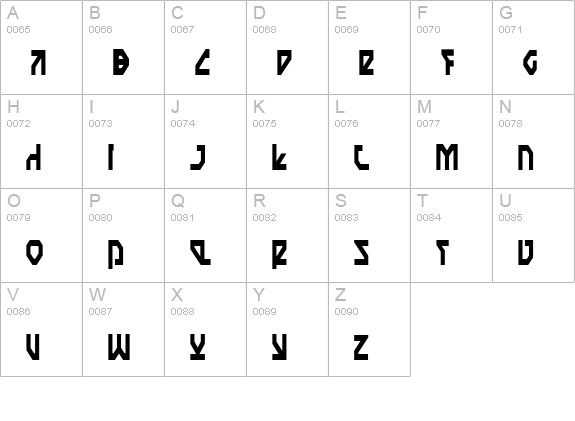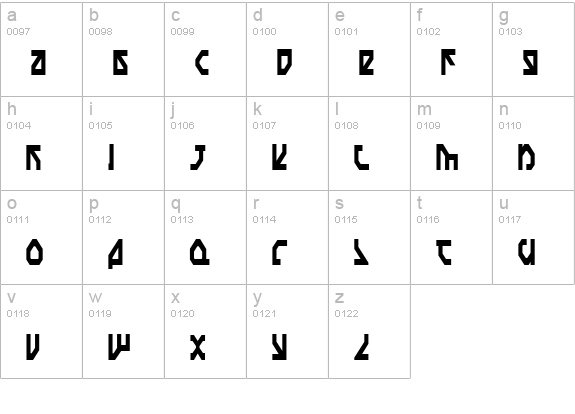
Nostromo Condensed is a distinctive, condensed-width variant in the Nostromo typeface family \xE2\x80\x94 well suited to design and typography projects.
Nostromo Condensed is a sleek and modern typeface that exudes sophistication and elegance. Its condensed design makes it perfect for projects that require a clean and minimalist look without sacrificing readability. The sharp edges and geometric shapes give Nostromo Condensed a contemporary feel, making it ideal for branding, editorial design, and web layouts. What's even better is that Nostromo Condensed is available for free download at FontsMarket.com. This means you can easily incorporate this stylish font into your projects without breaking the bank. Don't miss out on the opportunity to elevate your designs with the striking beauty of Nostromo Condensed. Download it today and let your creativity shine!